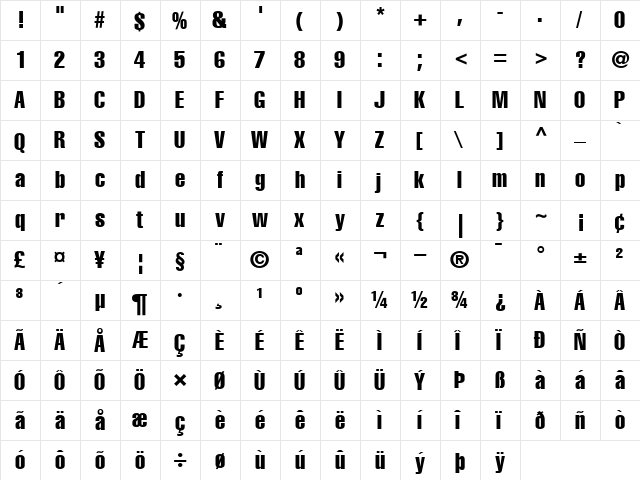
Helvetica-Compressed Roman
Design Context for Helvetica-Compressed Typeface
Helvetica-Compressed is a composed and adaptable typeface that performs quietly and consistently across a wide range of design contexts.